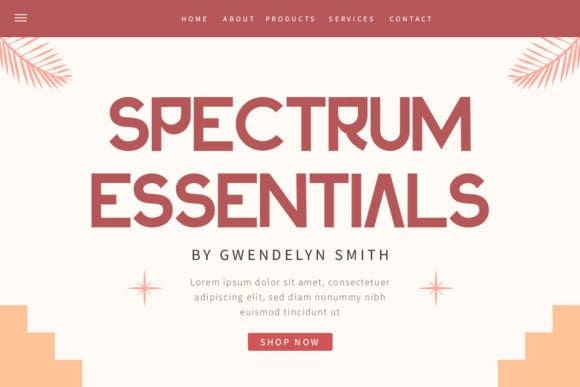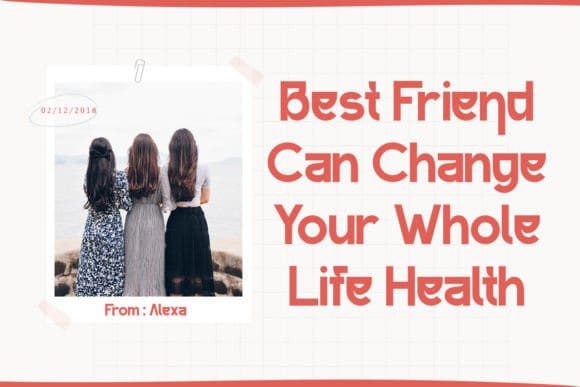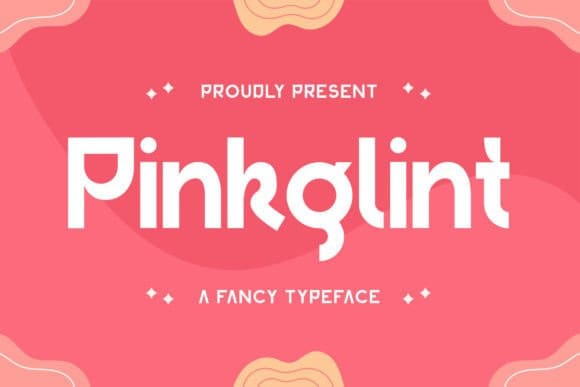
Pinkglint Font
Pinkglint Font is a fancy sans serif font, carefully handcrafted to become a true favorite. This font will look outstanding in any context, whether it’s being used on busy backgrounds or as a standalone headline!